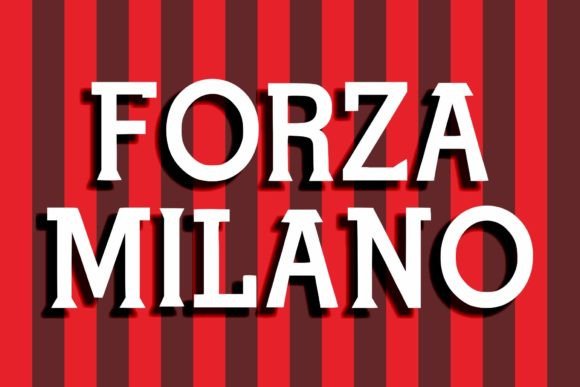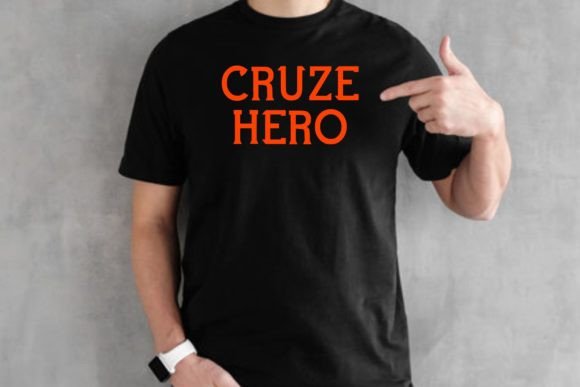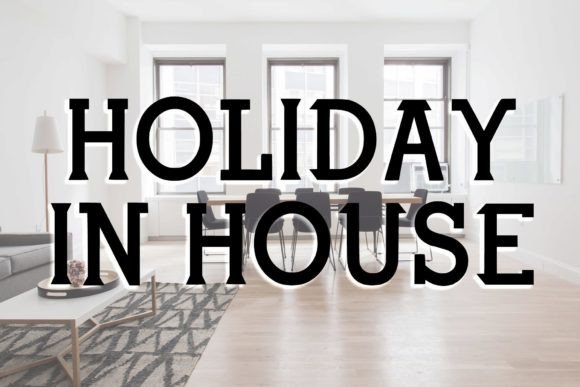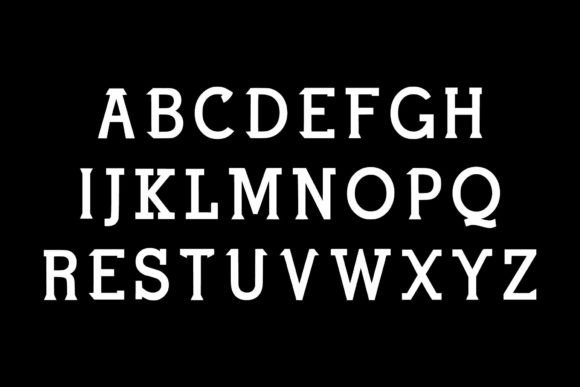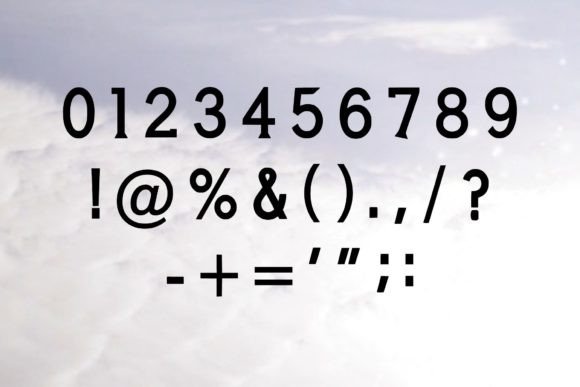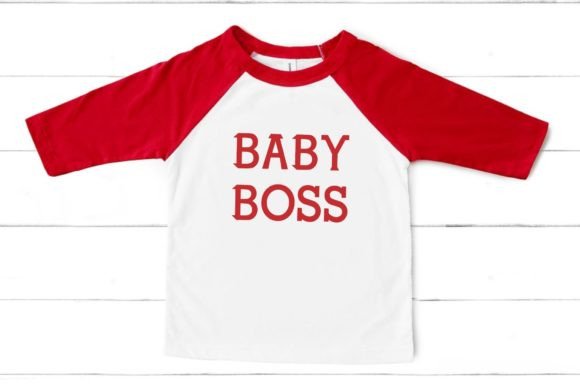
Crown Zero Font: Elevate Your Designs with a Sharp and Dashing Character
In the world of typography, fonts play a crucial role in conveying the tone and personality of a design. For designers and crafters looking for a font that exudes confidence and style, Crown Zero is an excellent choice. This display font boasts a sharp and dashing character that is sure to elevate your designs and make them stand out from the crowd.
What is Crown Zero Font?
Crown Zero is a display font designed to make a statement. Its unique blend of sharp and smooth lines creates a distinctive look that is both modern and sophisticated. With its casual and easy-to-read character, Crown Zero is perfect for a wide range of projects, from branding and advertising to packaging and digital media.
Key Features of Crown Zero Font
• Sharp and Dashing Character: Crown Zero’s sharp and dashing character makes it perfect for designs that require a bold and confident look.
• Casual and Easy-to-Read: The font’s casual and easy-to-read character ensures that your message is conveyed clearly and effectively.
• Versatile: Crown Zero is suitable for a wide range of projects, from print to digital media.
• High-Quality Design: The font is designed with high-quality craftsmanship, ensuring that it looks great in any design.
Why Choose Crown Zero Font?
With so many fonts available, why choose Crown Zero? Here are just a few reasons:
• Stand Out from the Crowd: Crown Zero’s unique character ensures that your designs stand out from the crowd and grab attention.
• Easy to Read: The font’s easy-to-read character makes it perfect for designs that require clear communication.
• Flexibility: Crown Zero can be used in a wide range of projects, from formal to informal designs.
How to Use Crown Zero Font
Using Crown Zero is easy. Here are a few tips to get you started:
• Pair it with Other Fonts: Crown Zero can be paired with other fonts to create a unique and interesting design.
• Experiment with Colors: The font looks great in a variety of colors, so don’t be afraid to experiment and find the perfect hue for your design.
• Use it for Headings: Crown Zero is perfect for headings and titles, where its bold and confident character can shine.
• Add Texture and Effects: Adding texture and effects to Crown Zero can enhance its appearance and make it even more striking.
In conclusion, Crown Zero is an excellent choice for designers and crafters looking for a font that exudes confidence and style. With its sharp and dashing character, casual and easy-to-read design, and versatility, Crown Zero is perfect for a wide range of projects. Whether you’re working on a branding campaign, creating packaging, or designing digital media, Crown Zero is sure to elevate your designs and help you achieve your goals.
• What is Crown Zero font?: Crown Zero is a display font with a sharp and dashing character, suitable for a wide range of projects.